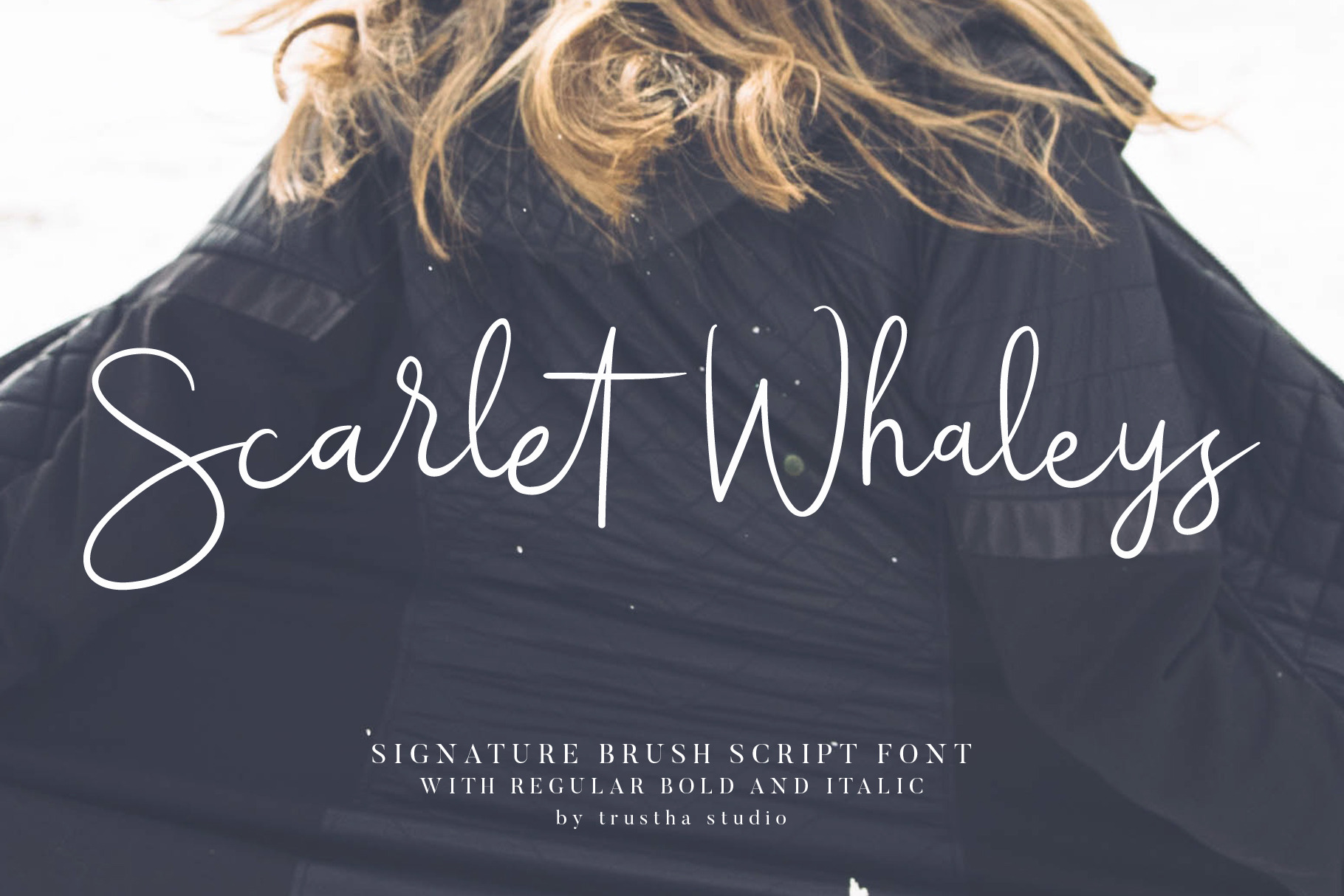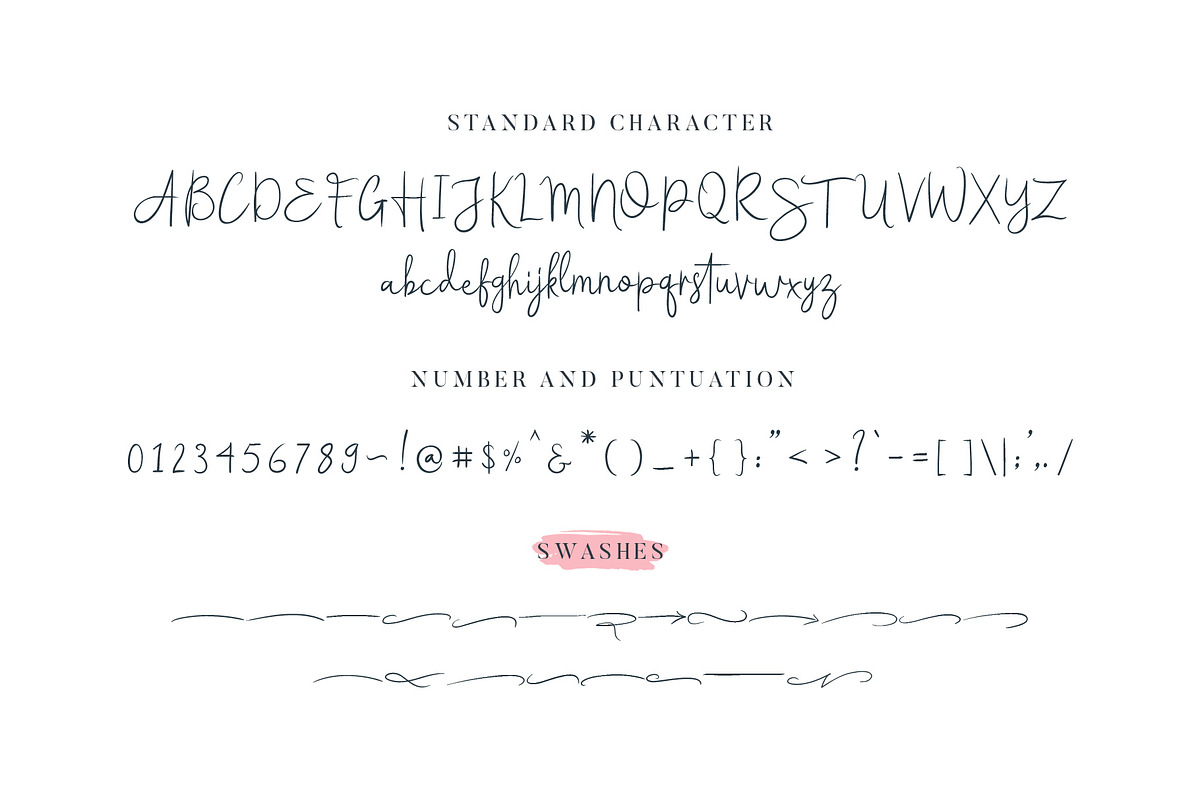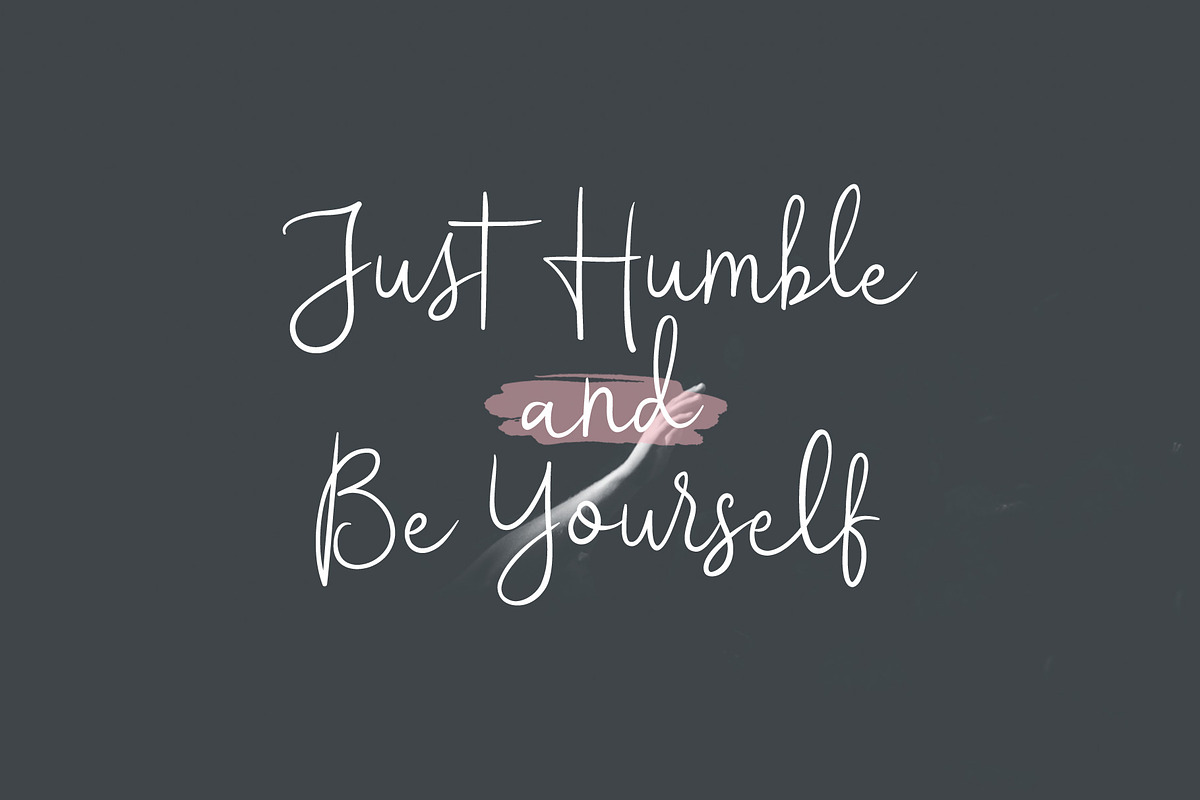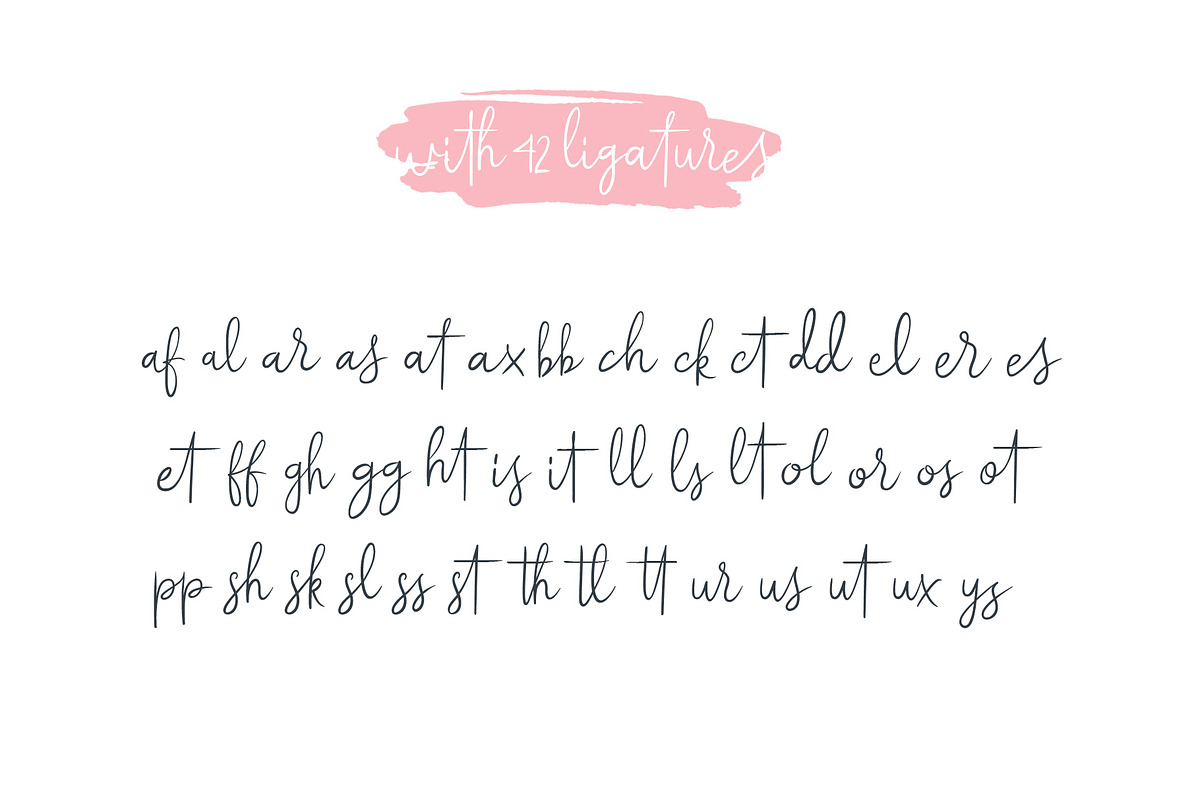
Scarlet Whaleys Font
Scarlet Whaleys is a signature brush script font. Scarlet Whaleys a very good for letterhead, poster, logotype, apparel design, label, website header, fashion design, name tag, quotes, t-shirts, packaging and any more.
- Number & punctuation symbols
- International characters (Multilingual)